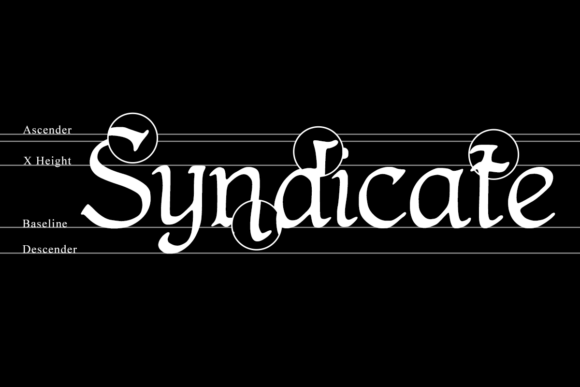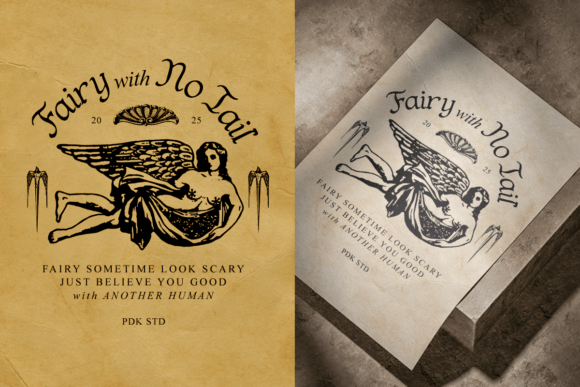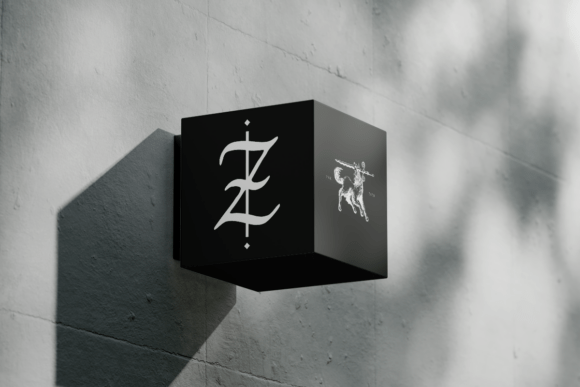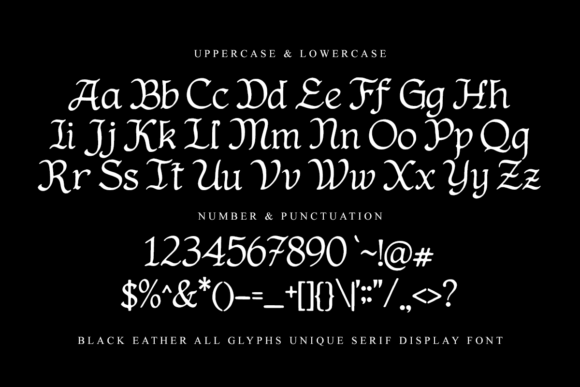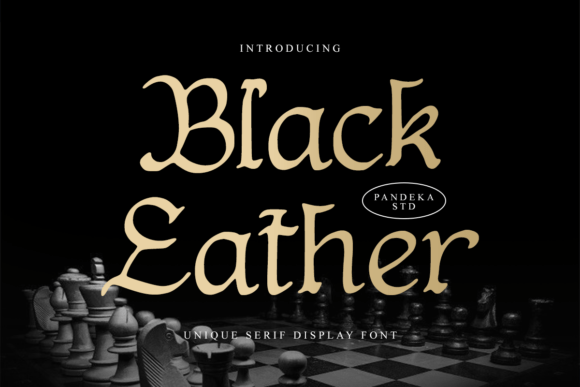
Introducing Black Eather Font: Elevate Your Typography with Timeless Elegance
In the world of typography, a font can make all the difference in conveying the right message and setting the tone for a brand or design. For those seeking a blend of classic sophistication and bold character, the Black Eather font is an exceptional choice. This vintage, elegant display serif font is designed to bring refinement and luxury to your typography, making it perfect for a wide range of applications.
A Perfect Blend of Classic and Modern
Black Eather captures the timeless beauty of traditional lettering while maintaining a modern edge. Its design combines graceful curves, sharp serifs, and balanced letterforms to exude confidence and charm. This font is not just a typeface; it’s a statement piece that can elevate your branding, editorial designs, packaging, tattoos, logos, and high-end product identities.
Crafted for Elegance and Versatility
Every letter in the Black Eather font is meticulously crafted to create a strong yet elegant impression. Its versatility makes it suitable for both vintage-inspired and contemporary visual styles. Whether you’re working on a luxury brand, a fashion magazine, or a high-end product, Black Eather can add a sense of authenticity, craftsmanship, and prestige to your projects.
Key Features of Black Eather Font
• Vintage Elegance: Black Eather boasts a classic, sophisticated look that is reminiscent of traditional serif fonts, but with a bold and modern twist.
• Display Serif Font: Designed specifically for display purposes, Black Eather shines in large sizes, making it ideal for headlines, titles, and short texts.
• Single Style: The font comes in one regular style, which includes uppercase, lowercase, numerals, punctuation, and multilingual support, ensuring a wide range of uses.
• Elegant and Bold: With its sharp serifs and graceful curves, Black Eather strikes the perfect balance between elegance and boldness, suitable for luxury brands and high-end designs.
Applications of Black Eather Font
The applications of Black Eather are vast and varied. Here are a few ideas to get you started:
• Branding: Use Black Eather to create a luxurious and sophisticated brand identity that stands out from the crowd.
• Editorial Designs: Add a touch of elegance to your magazine covers, articles, and editorials with this stunning serif font.
• Packaging: Elevate your product packaging with Black Eather, making your products look premium and high-end.
• Tattoos and Logos: The bold yet elegant design of Black Eather makes it perfect for tattoos and logos that require a unique and impactful typeface.
• High-End Product Identities: For luxury products, Black Eather can help convey a sense of quality, craftsmanship, and exclusivity.
Why Choose Black Eather Font?
In a sea of fonts, Black Eather stands out for its unique blend of vintage charm and modern sophistication. Here are a few reasons why designers and crafters should consider Black Eather for their projects:
• Unique Aesthetic: Black Eather offers a distinctive look that can set your designs apart from the rest.
• High Versatility: Its wide range of applications makes Black Eather a valuable addition to any designer’s font library.
• Elegance and Boldness: The font’s ability to convey both elegance and boldness makes it suitable for a variety of projects, from luxury brands to editorial designs.
Font Name Black Eather Font
Author pandekastudio
Black Eather font is a remarkable addition to the world of typography, offering a perfect blend of classic sophistication and bold character. Its elegance, versatility, and unique aesthetic make it an ideal choice for designers and crafters looking to add a touch of luxury and prestige to their projects. Whether you’re working on branding, editorial designs, packaging, or high-end product identities, Black Eather is sure to make a lasting impression.
Discover the power of Black Eather and elevate your typography to new heights of elegance and sophistication.